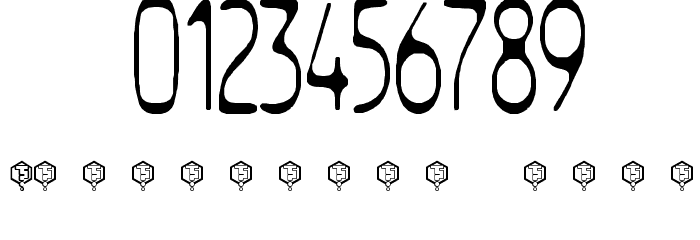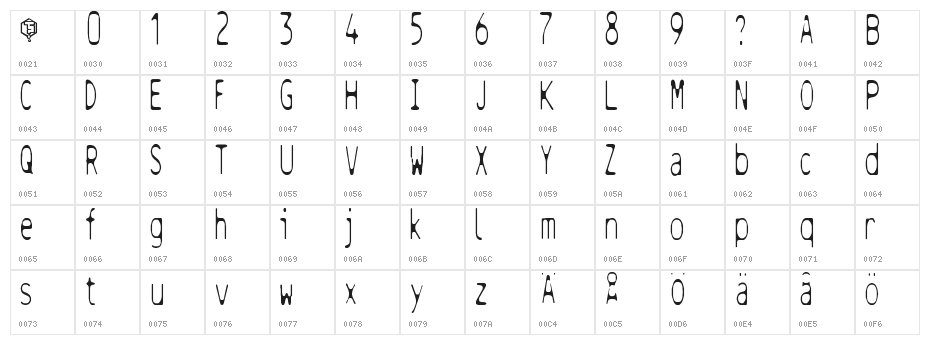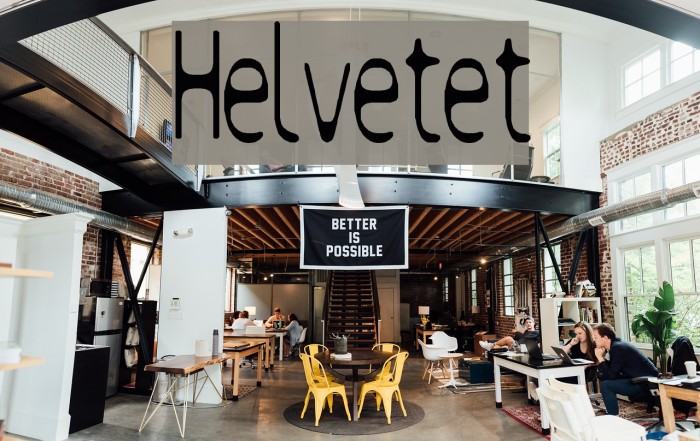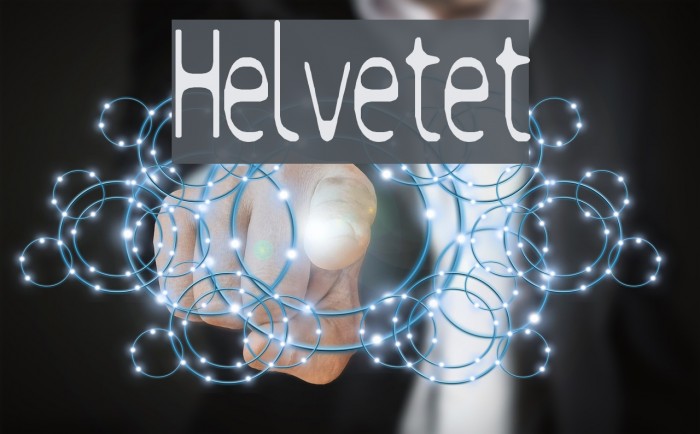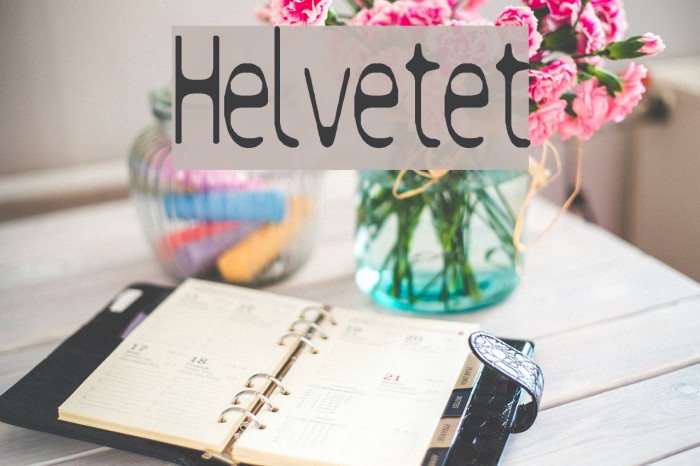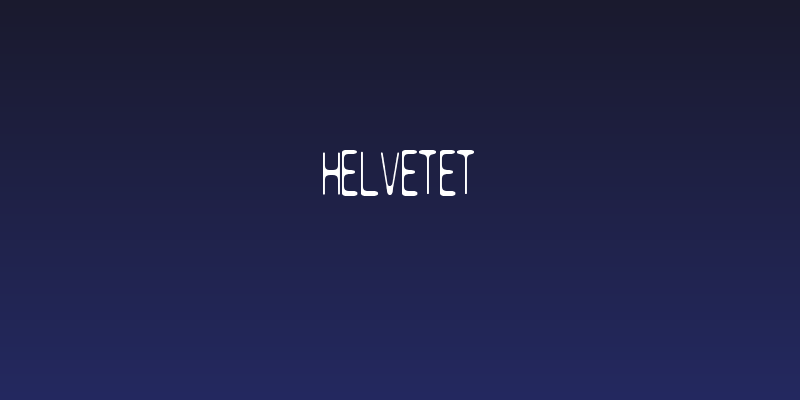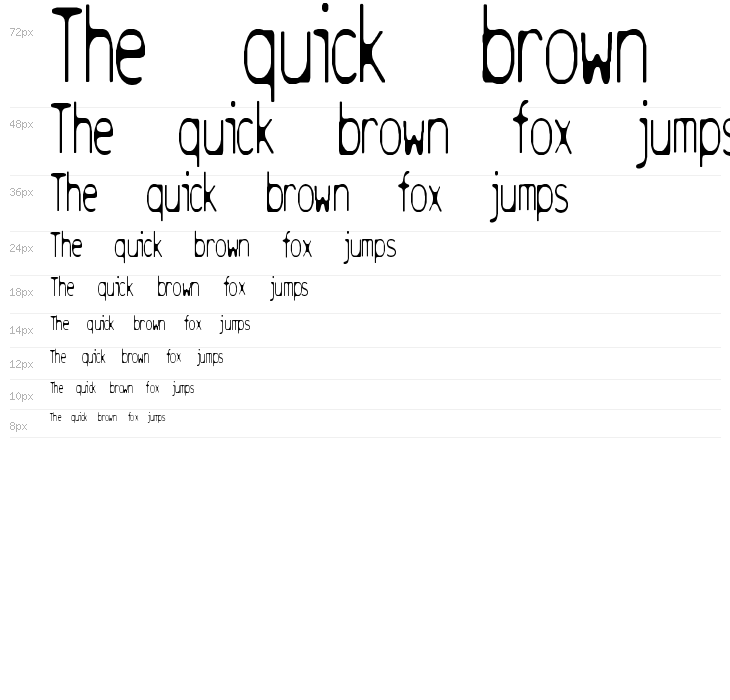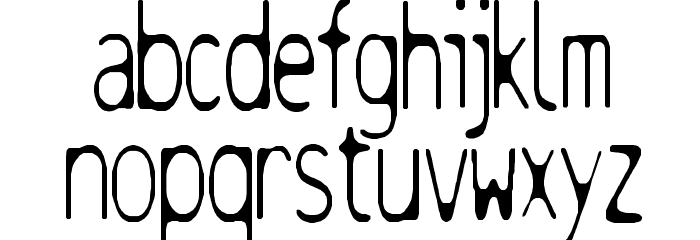
Helvetet Font
Helvetet Description
This font features a playful and quirky design with uneven strokes and a hand-drawn appearance. The letters have a whimsical quality, with varying thicknesses that give it a dynamic and lively feel. The uppercase and lowercase characters maintain a consistent style, while the numerals and special characters complement the overall aesthetic. The font's unique character shapes and irregularities make it stand out, adding a touch of creativity and fun to any project.
| Overall Style | Playful, Creative |
| Proposed Projects | Ideal for children's books, creative posters, playful branding, and artistic invitations. |